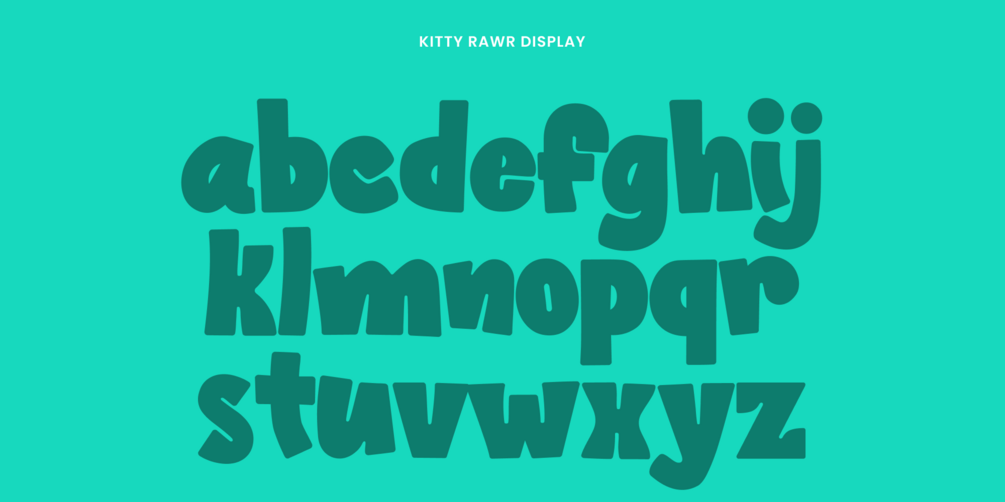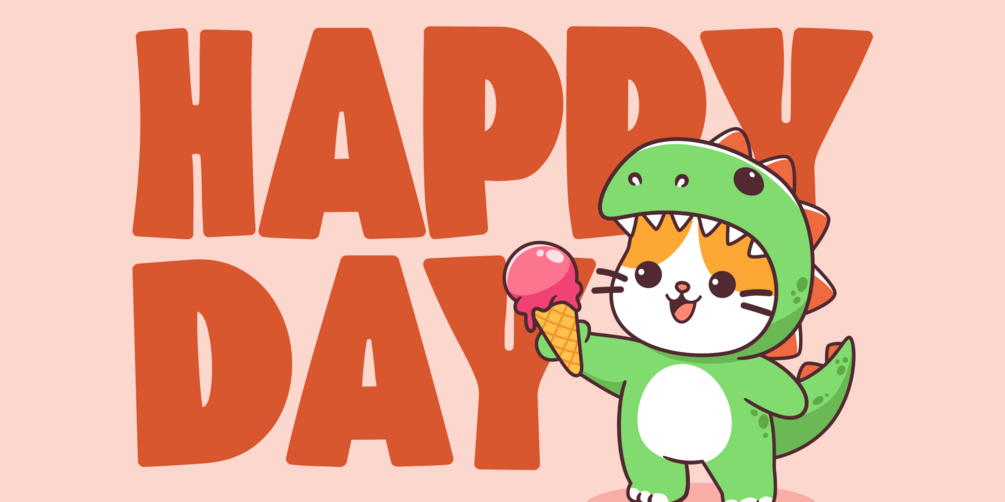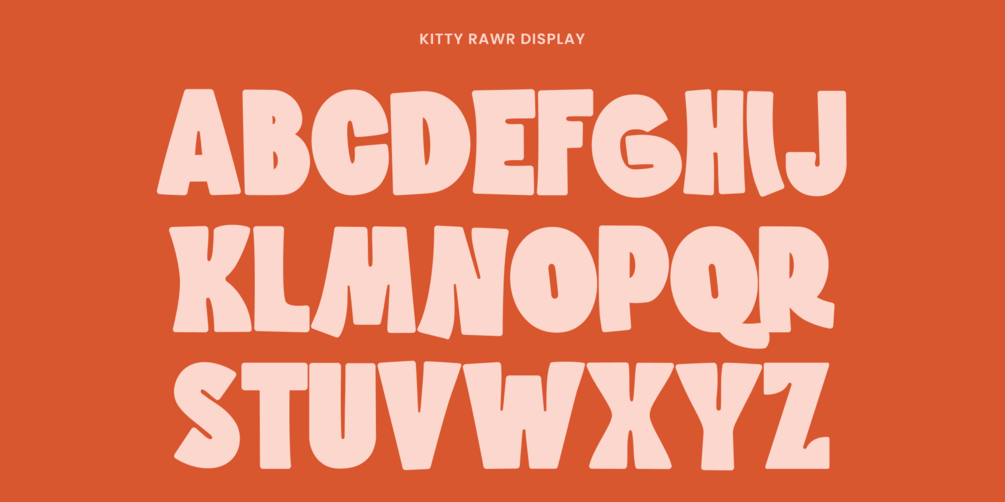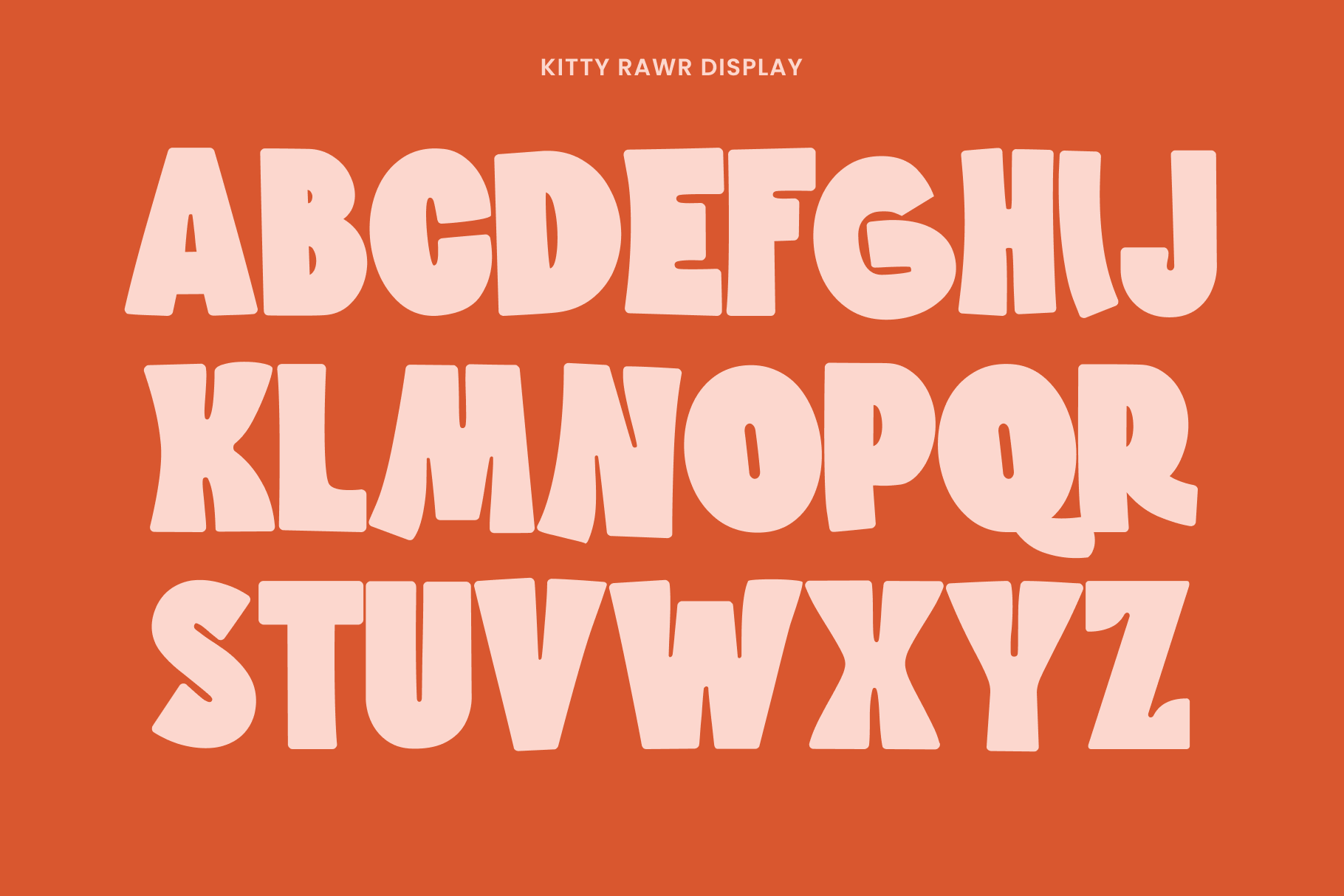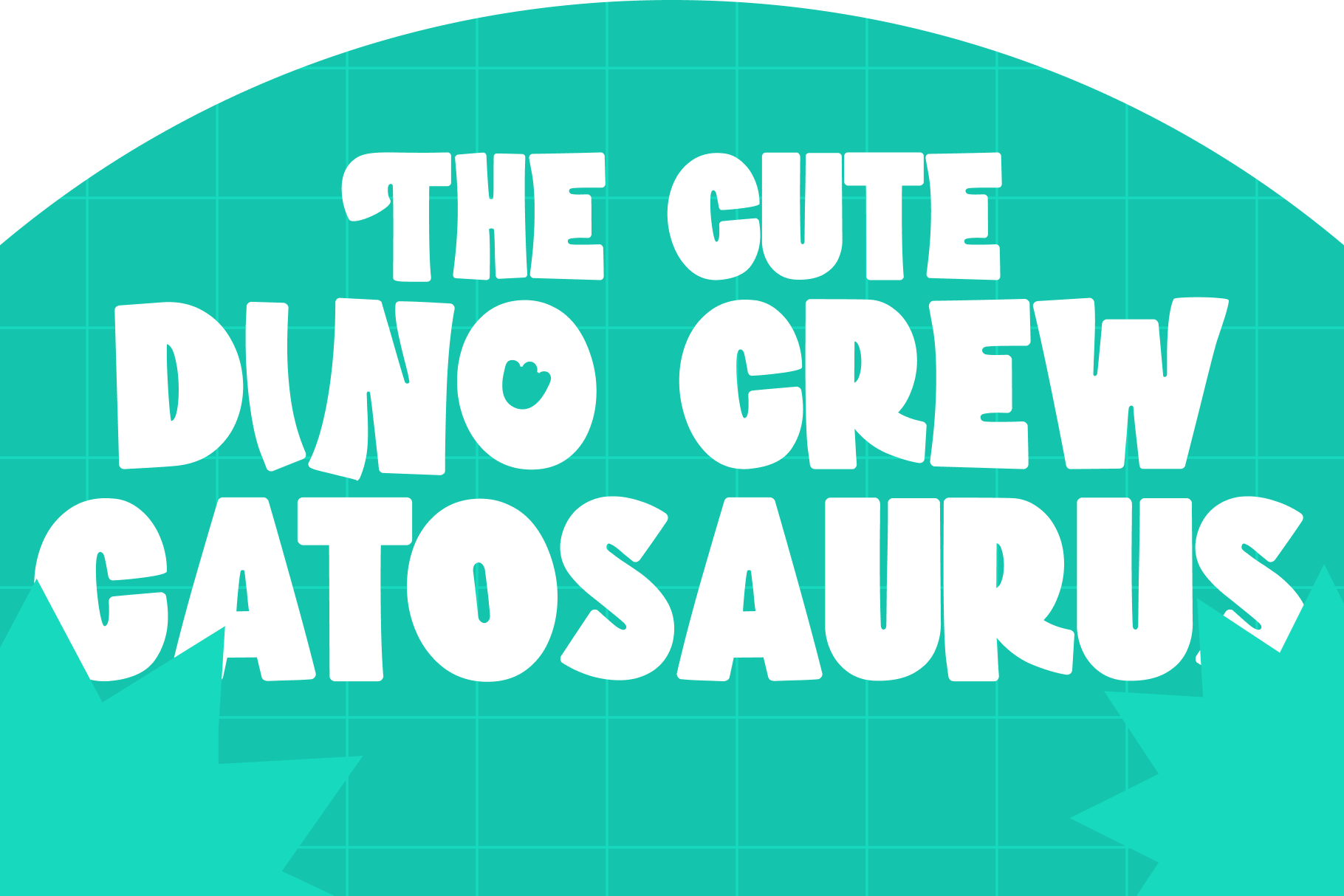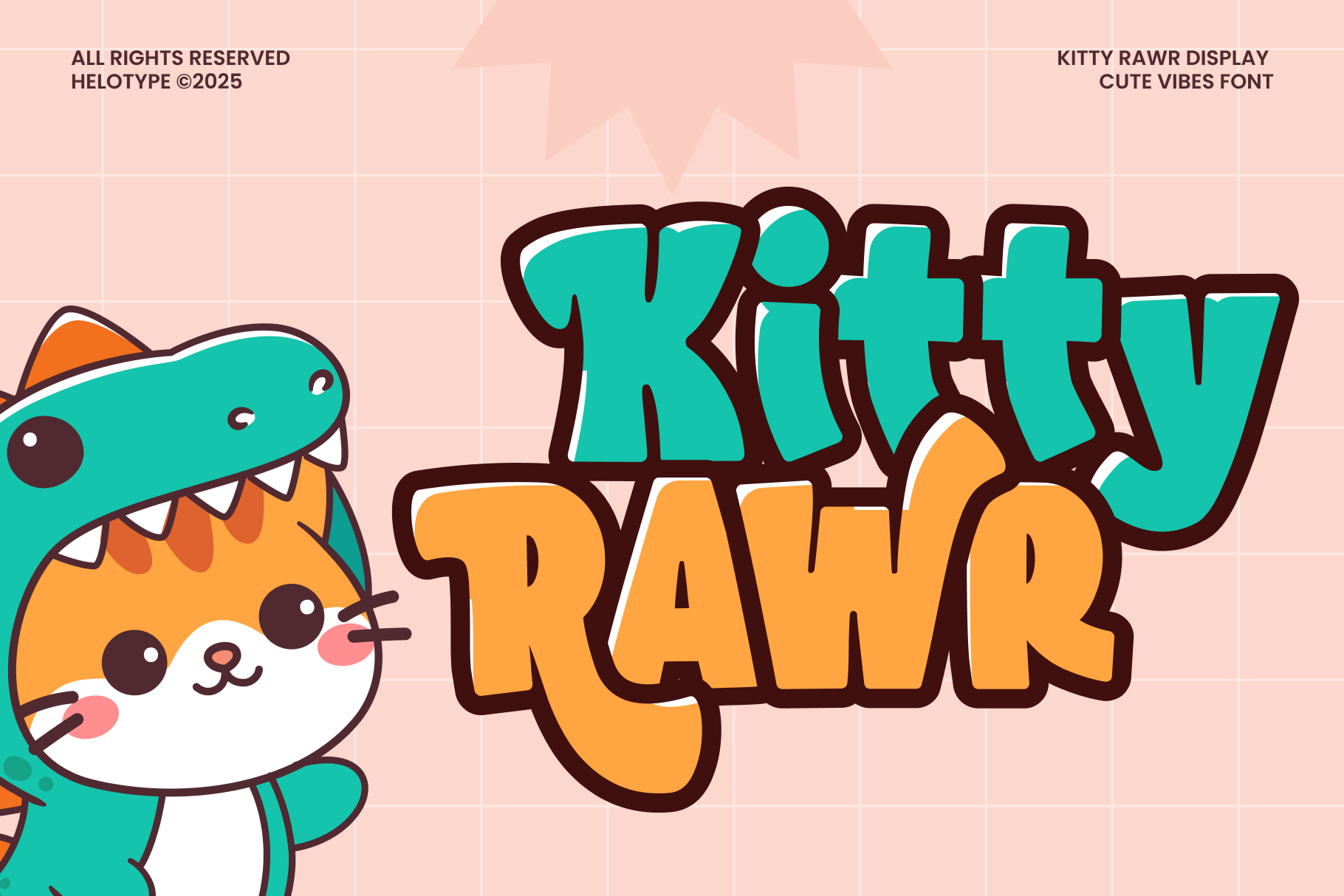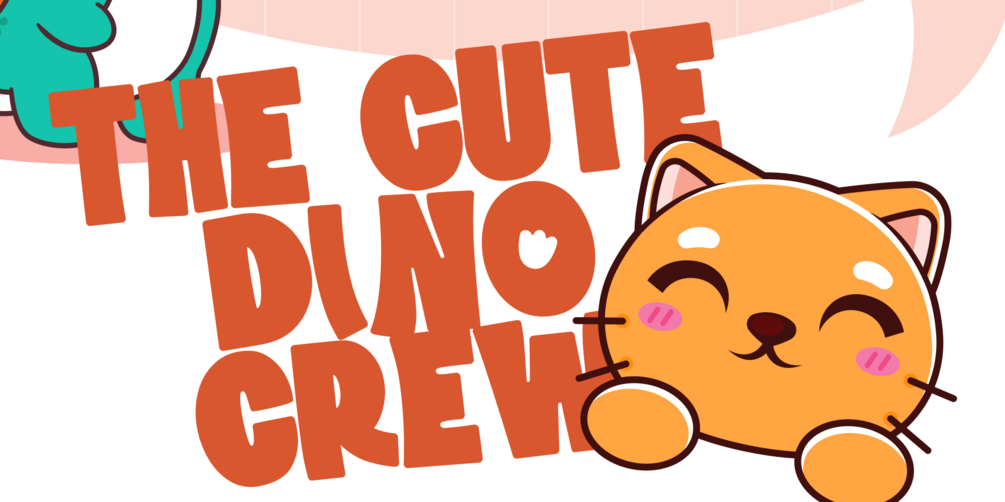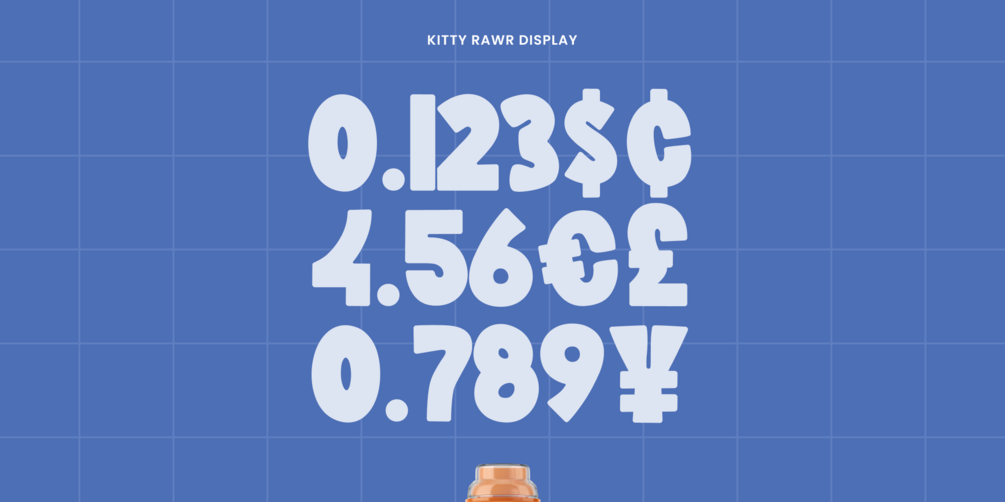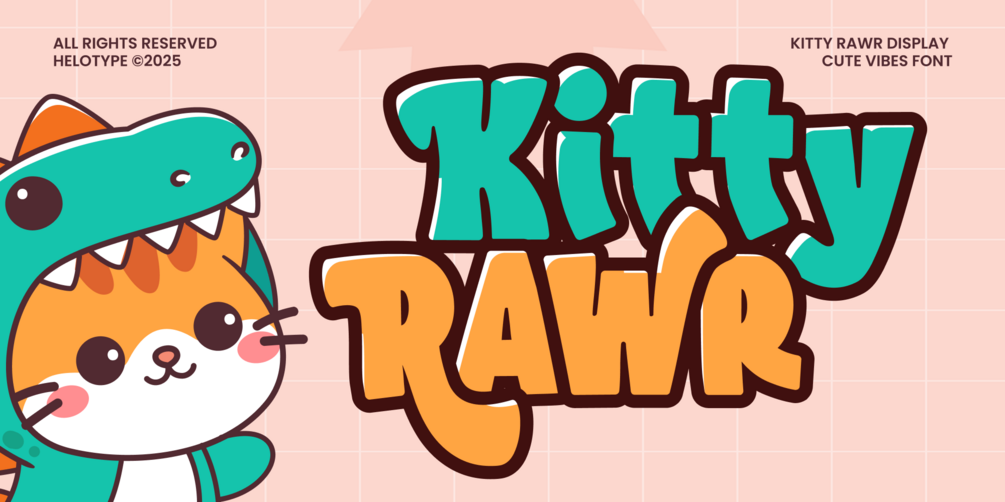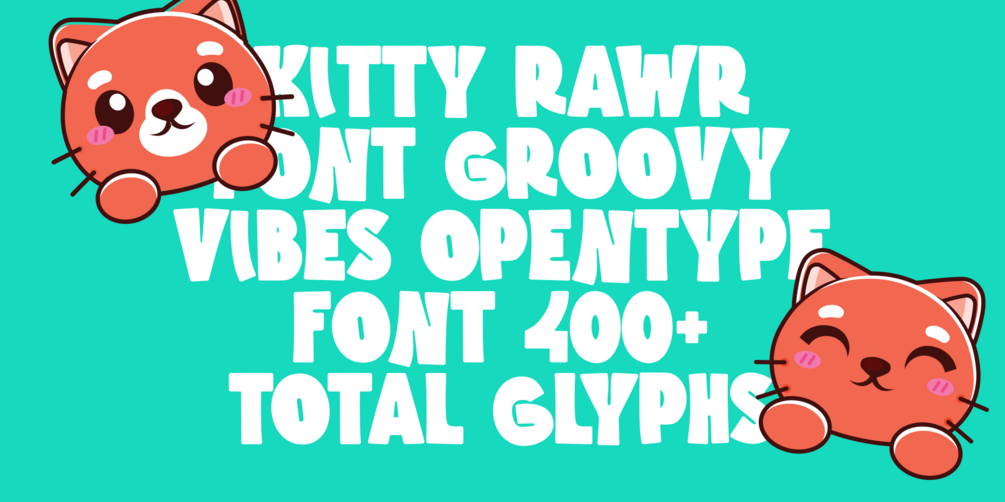
Kitty Rawr Cute Display Font
Get ready to 'rawr' with delight! Introducing Kitty Rawr, the impossibly cute display font that combines groovy bubble letters with a playful cat-dino theme. This font is bursting with personality, featuring rounded, bold characters that are friendly, energetic, and so much fun. It's the perfect choice for anyone looking to add a touch of adorable mischief to their designs. Make your projects stand out with a font that’s equal parts cute kitten and mighty T-Rex!
Uppercase and Lowercase letters
Alternates feature
Numbering and Punctuations
Multilingual